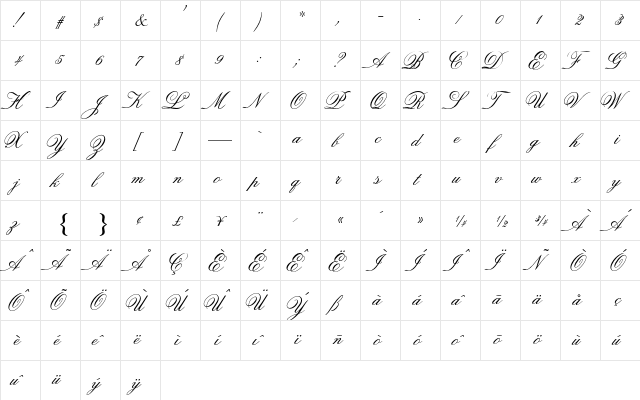
Old Fashion Script AT Regular
Design Context for Old Fashion Script AT Typeface
Old Fashion Script AT brings a calligraphic fluidity to the page — its connecting strokes and expressive curves give it an unmistakably human quality.